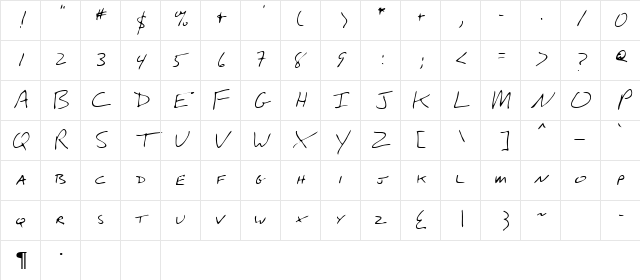
Dunsay Regular Free Font
Dunsay Regular
Design Context for Dunsay
Dunsay is a composed and adaptable typeface that performs quietly and consistently across a wide range of design contexts.